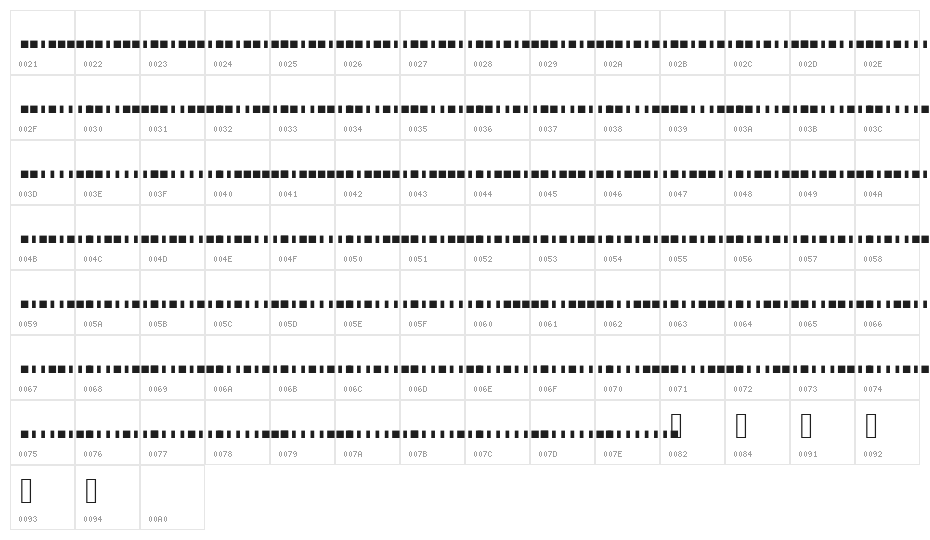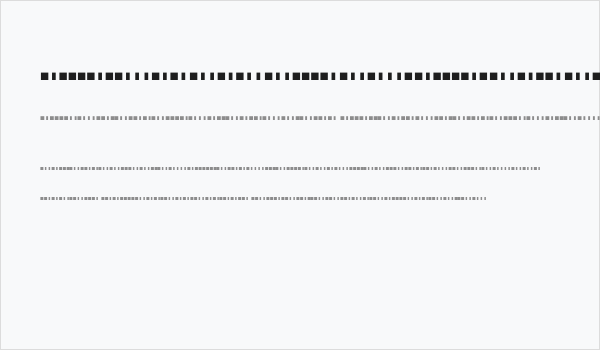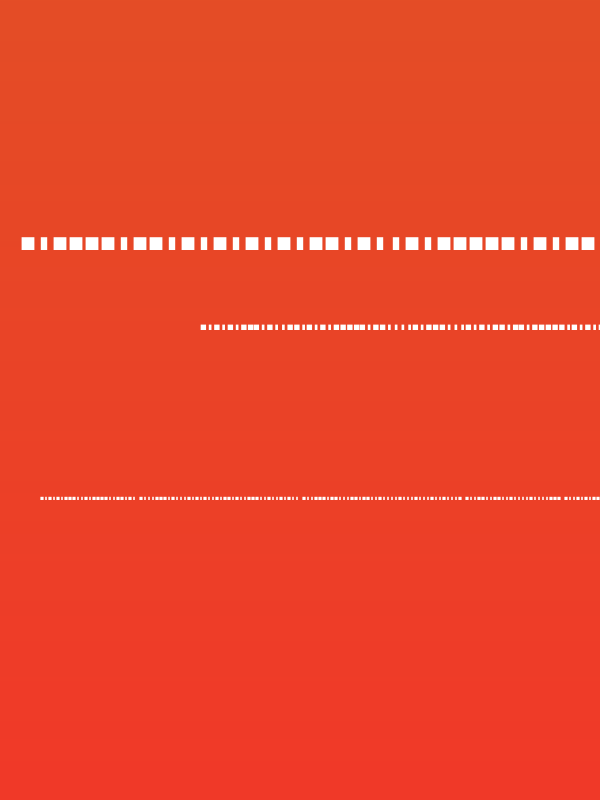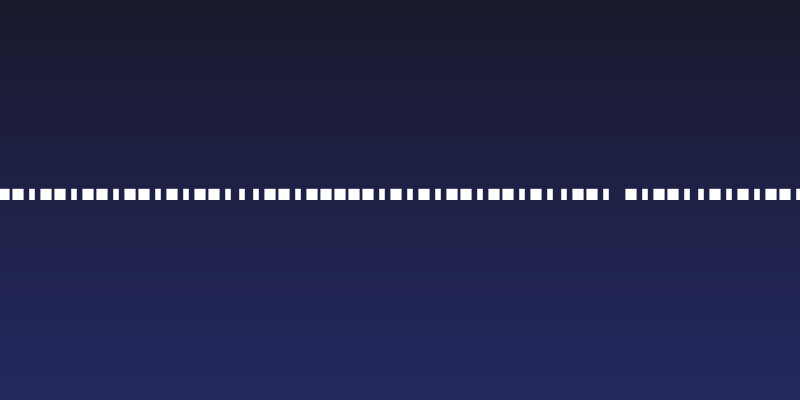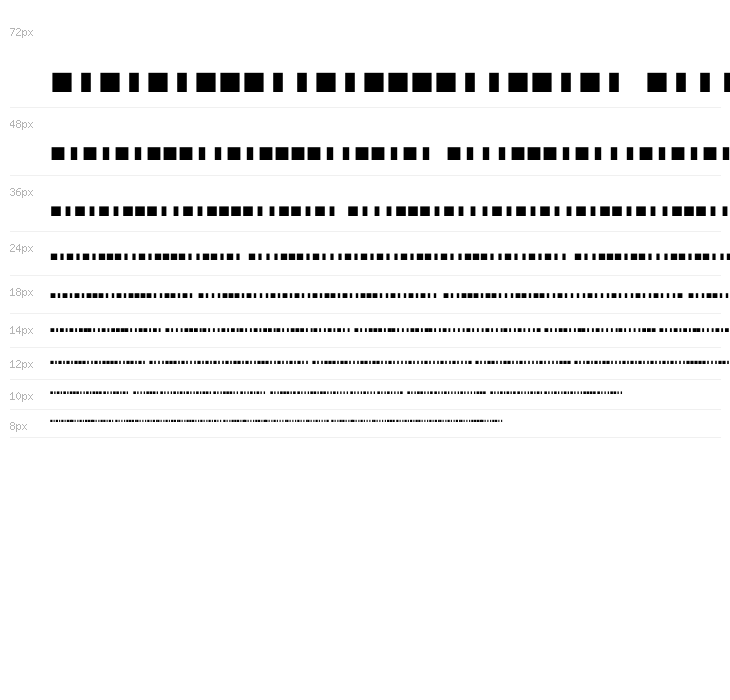
BukanBinary Mono Too Font
BukanBinary Mono Too Description
This font is a unique and creative representation of characters using a binary-like pattern. Each letter and symbol is constructed with a series of dots and dashes, resembling a digital or Morse code style. The design is highly abstract and decorative, making it stand out for its unconventional approach. The characters are evenly spaced and maintain a consistent pattern throughout, providing a uniform appearance. This font is not suitable for body text due to its intricate design but can be an excellent choice for artistic and thematic projects where a digital or coded aesthetic is desired.
| Overall Style | Modern, Digital |
| Use Case | Logos, Posters, Art projects |
| Proposed Projects | Ideal for digital art, tech-themed posters, and creative coding projects. |